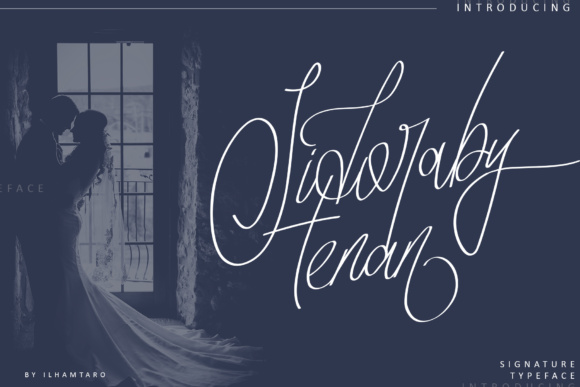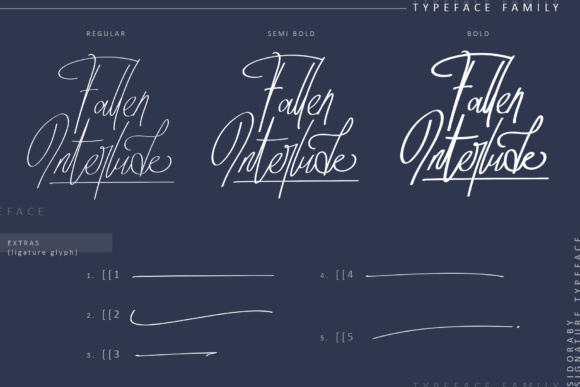
About Sidoraby Font
Sidoraby is a elegant typeface with a signature style. With it’s feminine style, Sidoraby is perfect for various purposes such as: blogging, social media, branding, wedding invites and much more! Sidoraby comes in three variations: Regular, Bold and Semi bold.